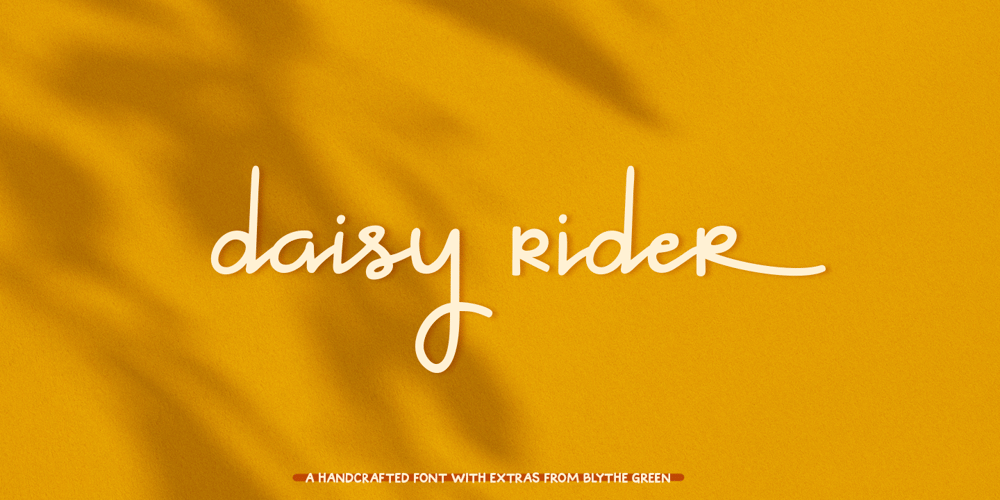
Daisy Rider Font Family was designed by Blythe Green and published by Blythe Green. Daisy Rider contains 1 styles and family package options. Daisy Rider is a handcrafted, mixed-case, semi-script font with an authentic feel and lots of extras! It’s perfect for: logos, branding, wedding invitations, business cards, greeting cards, posters, magazines, social media, planners, prints, and more.NOTE: Since this is a semi-script font, I programed Daisy Rider with many alternate characters and ligatures that ensure the characters work seamlessly together (unlike what you’re seeing with the sample text on My Fonts). See the sample images for reference. Once you download the file, you can access these features through any Open Type program such as Adobe Creative Suite, Microsoft Word, etc. FEATURES: 60 ligatures to help make your type look as handwritten as possible Alternate characters to give a unique touch to each word Multilingual accents + characters